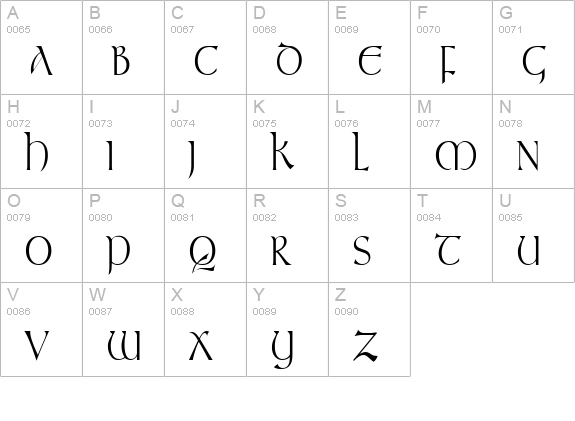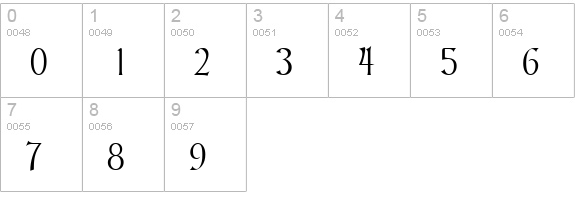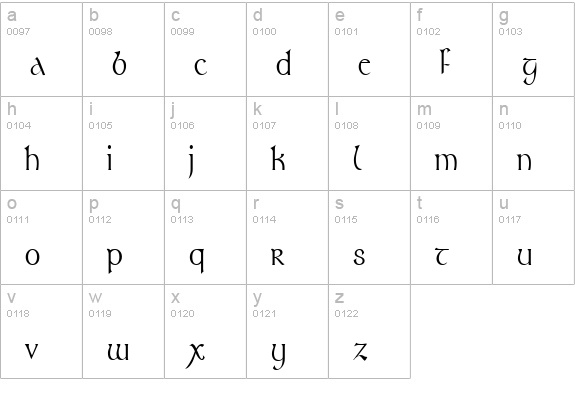
TolkienNarrow Regular Font Details
TolkienNarrow Regular is the standard, neutral variant in the TolkienNarrow typeface family \xE2\x80\x94 well suited to general body text, paragraphs, and standard typographic work.
TolkienNarrow Regular font is a captivating typeface that effortlessly captures the timeless essence of J.R.R. Tolkien's legendary world. With its elegant and slender letterforms, this font exudes an air of sophistication and intrigue, perfectly suited for any project that requires a touch of mystique. The clean lines and distinctive curves of TolkienNarrow Regular make it a versatile choice for both headings and body text. Whether used in print or on screen, this font ensures optimal readability without compromising on style. Its balanced proportions and carefully crafted details offer a harmonious visual experience, allowing your words to truly shine. One of the most remarkable aspects of TolkienNarrow Regular is that it is freely available to download at FontsMarket.com. This means that you can effortlessly incorporate this stunning font into your designs without any cost. Whether you are a professional designer or a hobbyist enthusiast, the accessibility of this font allows you to elevate your projects and create a lasting impression. So, if you are seeking a font that encapsulates the enchanting allure of Tolkien's world, look no further than TolkienNarrow Regular. Its timeless elegance, combined with its availability as a free download, makes it an invaluable asset for any creative endeavor. Embrace the magic of this font and let your imagination run wild.